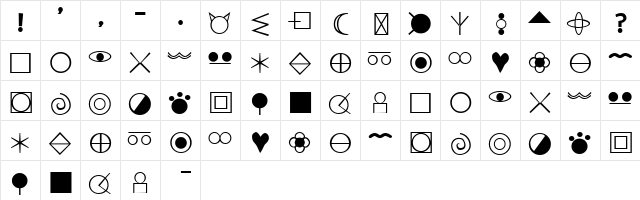
nicklishnickoz Regular Font Preview
nicklishnickoz Regular
Design Context for nicklishnickoz Typeface
nicklishnickoz is a composed and adaptable typeface that performs quietly and consistently across a wide range of design contexts.